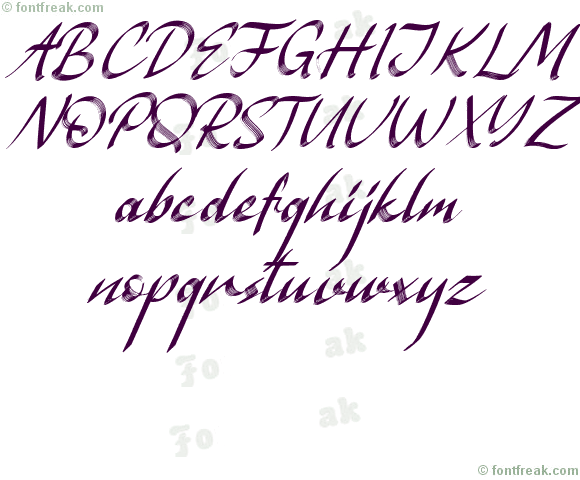
Galligra
Galligra, designed by Abas Creative in 2020, is a captivating script font that exudes elegance and sophistication. With its flowing, cursive style, this font effectively combines artistry with readability, making it an excellent choice for a variety of design projects. The strokes of the Galligra font feature a delicate contrast in weight, creating a visually appealing dynamic that draws the eye. The spacing between letters is thoughtfully designed, ensuring each character stands out while maintaining a harmonious overall appearance. Decorative flourishes add a touch of flair, enhancing its artistic charm without overwhelming the viewer.
This versatile typeface is perfect for numerous applications. Wedding invitations can benefit from Galligra's romantic and refined aesthetic, making them even more memorable. Additionally, it works beautifully for greeting cards and personal stationery, where a touch of elegance is desired. Restaurant menus can also take advantage of Galligra's sophisticated look, providing an upscale feel that enhances the dining experience. Graphic designers will find this font suitable for branding projects, as its unique style helps businesses stand out in a crowded marketplace. Content creators looking for an eye-catching title font for their blogs or social media graphics will appreciate its artistic flair.
Targeted towards graphic designers, small business owners, and content creators, Galligra offers a free download option, making it accessible to a wide audience. Its unique blend of elegance and versatility makes this font a standout choice for anyone looking to elevate their design projects. Whether for formal occasions or creative branding, Galligra is sure to leave a lasting impression with its distinct style and charm. Don't miss the opportunity to explore the Galligra font free download and incorporate this stunning typeface into your next project.